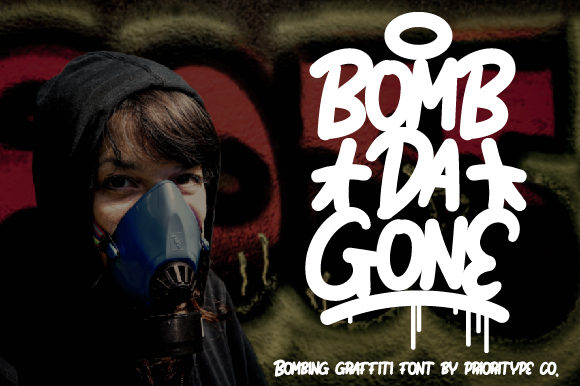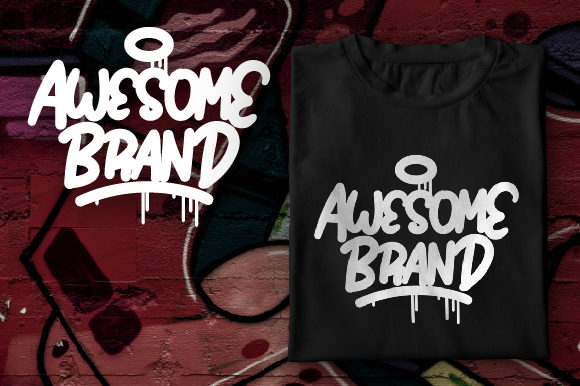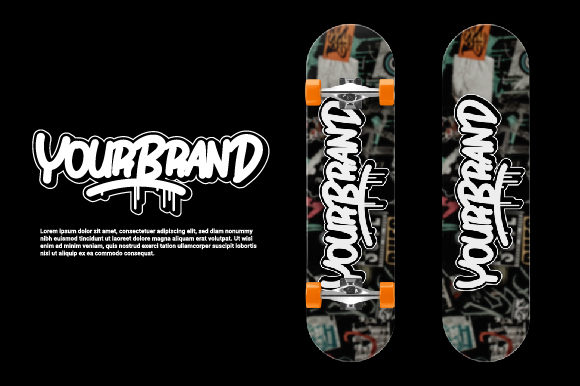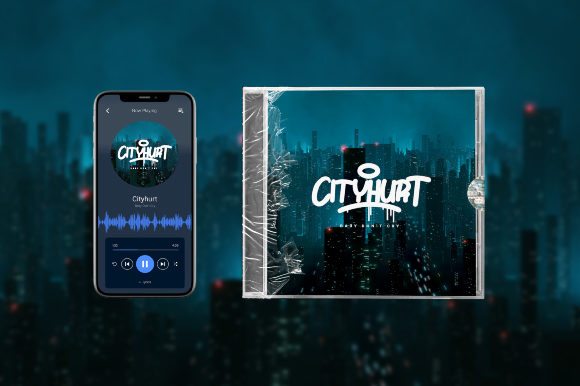
Bomb Da Gone Font
About the Bomb Da Gone Font
Unleash your creativity with Bomb Da Gone Font, a versatile font perfect for a wide range of applications. Bomb Da Gone is a cool and trendy display font, featuring a graffiti style. This font reads as strong, confident, and dynamic and can add tons of nostalgic character to your designs.
Bomb Da Gone excels in headline applications, posters, and branding projects that demand a bold, rebellious aesthetic. Its graffiti-inspired forms are ideal for conveying energy and street-style attitude, making it perfect for skate brands, streetwear apparel, music-related designs, and edgy campaigns. Avoid using it for body copy or UI elements; its strong character and large x-height aren’t suited to long reads or small sizes.
Pairing Bomb Da Gone effectively requires a contrasting typeface to provide balance. A clean, geometric sans-serif like Futura or a simple serif such as Garamond would create strong visual contrast, allowing the Bomb Da Gone headline to stand out while maintaining readability. Alternatively, a more playful, rounded sans-serif could create a cohesive yet dynamic feel.
The font’s core personality is undeniably bold and rebellious. Its strong forms and slightly irregular letterforms communicate a sense of raw energy and unconventionality.
Bomb Da Gone Font Usage Examples
Bomb Da Gone Font Example